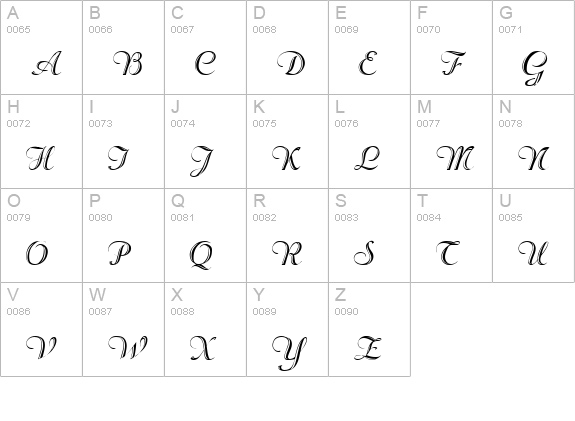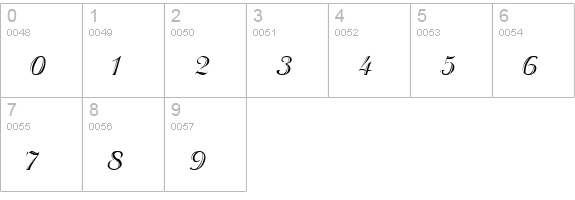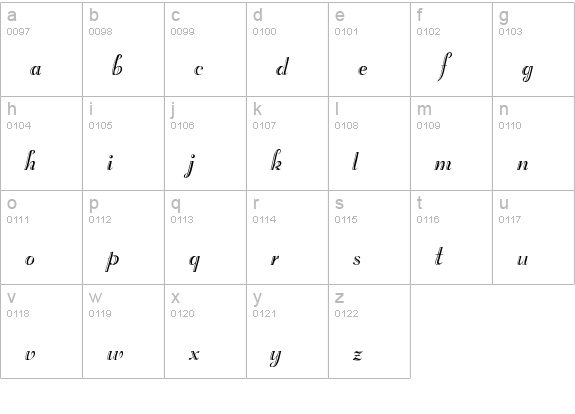
Rechtman-Script Regular Font Details
Rechtman-Script Regular is the standard, neutral variant in the Rechtman typeface family \xE2\x80\x94 well suited to general body text, paragraphs, and standard typographic work.
Rechtman-Script Regular font is a stunning and elegant typeface that will add a touch of sophistication to any design project. Its flowing and graceful letterforms create a sense of timeless beauty, making it ideal for a wide range of applications, from invitations and wedding stationery to branding and packaging. This font is perfect for those seeking a classic yet modern script font that exudes charm and refinement. Its delicate strokes and intricate details showcase its craftsmanship and attention to detail. Every character is carefully designed to create a harmonious and balanced appearance, ensuring a seamless reading experience. One of the best features of Rechtman-Script Regular font is that it is available for free download at FontsMarket.com. This means that you can easily access and use this beautiful typeface without any cost. Whether you're a professional designer or a hobbyist, this free font gives you the opportunity to create stunning and visually captivating designs without breaking the bank. With its versatility and timeless appeal, Rechtman-Script Regular font is a must-have for any designer's toolkit. Its clean and legible letterforms ensure readability while still maintaining a unique and distinctive look. Whether you're designing a logo, creating a poster, or crafting an elegant invitation, this font is sure to make a lasting impression. Download Rechtman-Script Regular font for free at FontsMarket.com and unlock the potential to create breathtaking and memorable designs. Don't miss out on this incredible opportunity to enhance your projects with a font that seamlessly combines beauty and functionality.